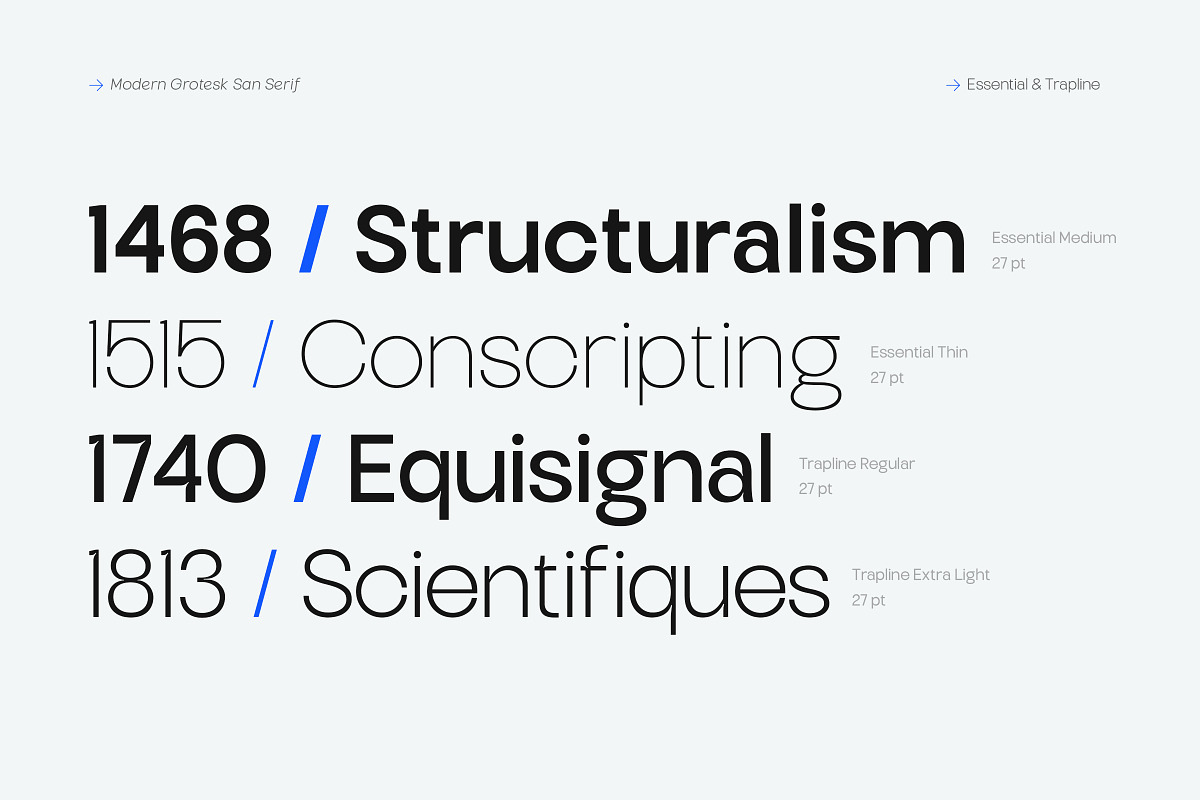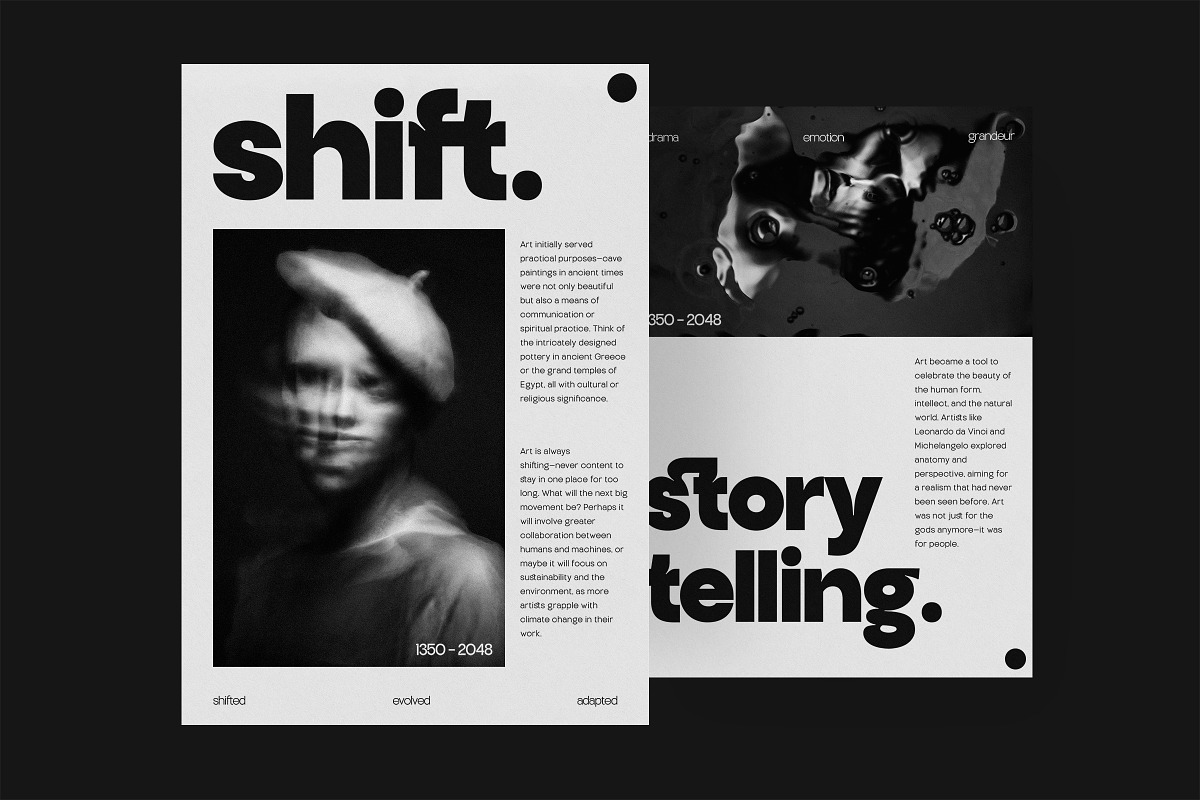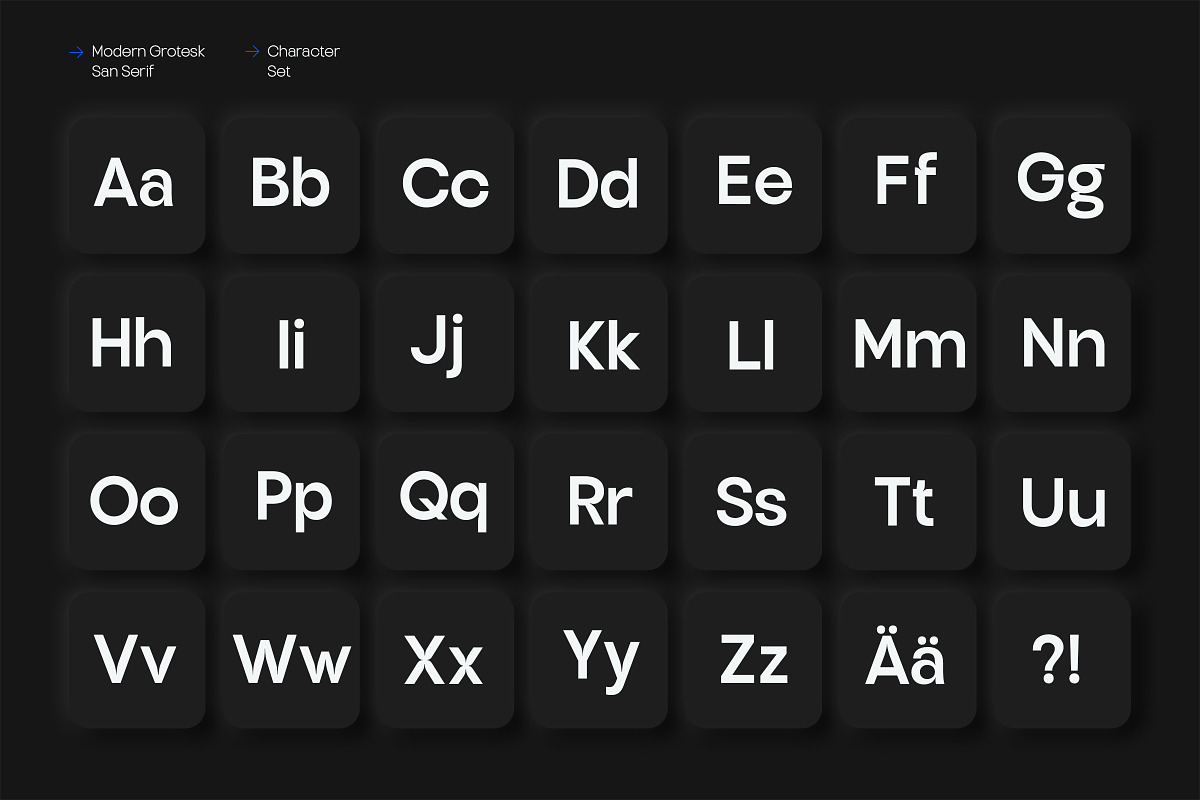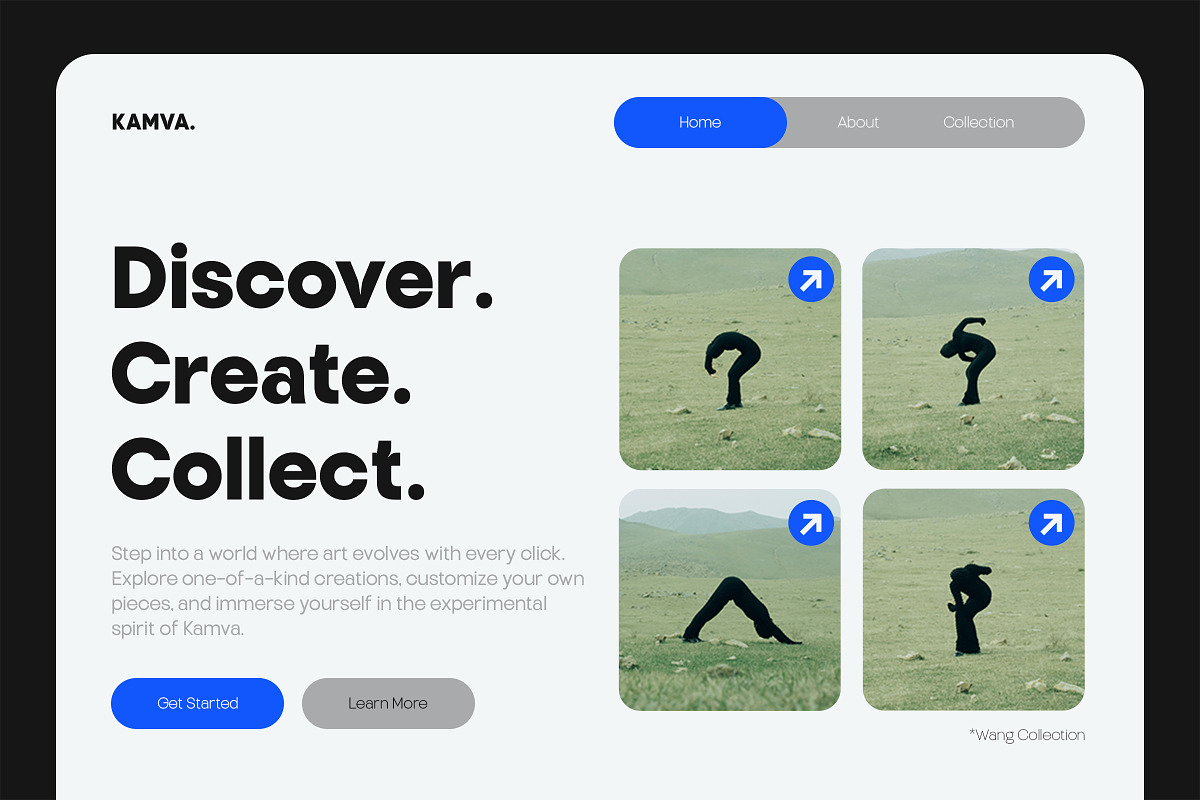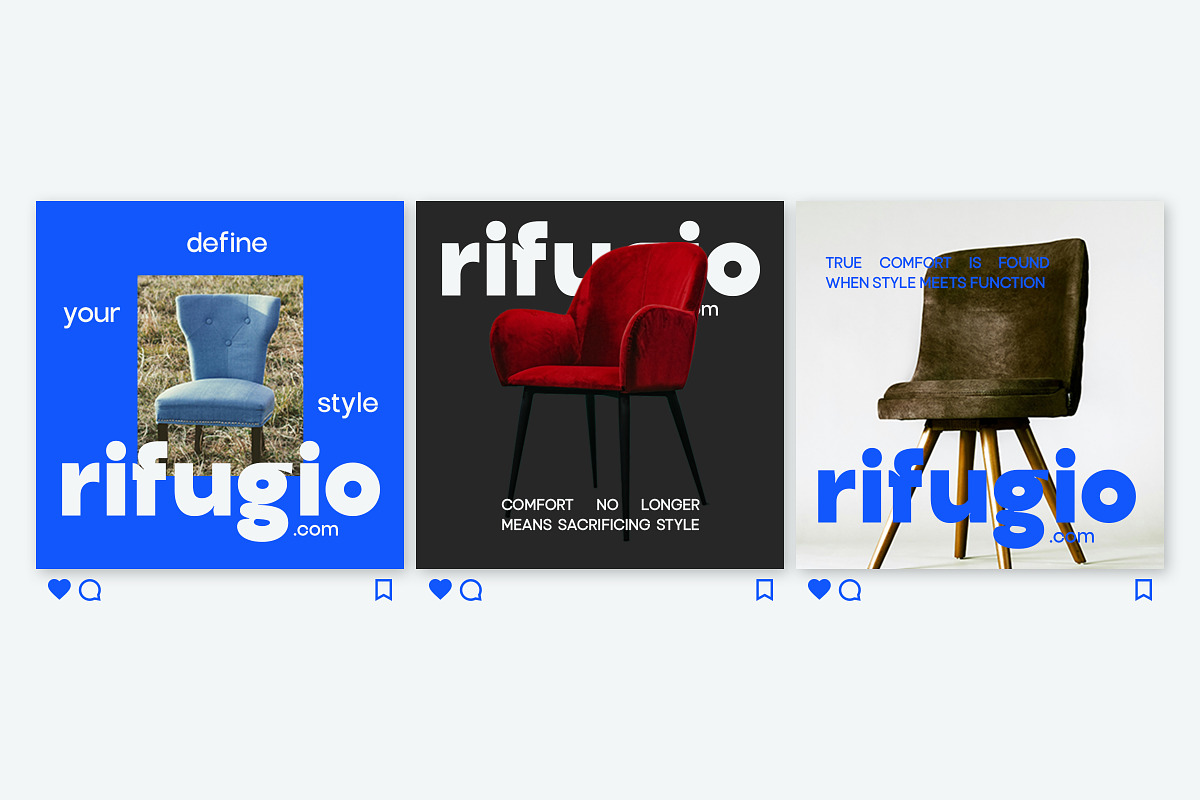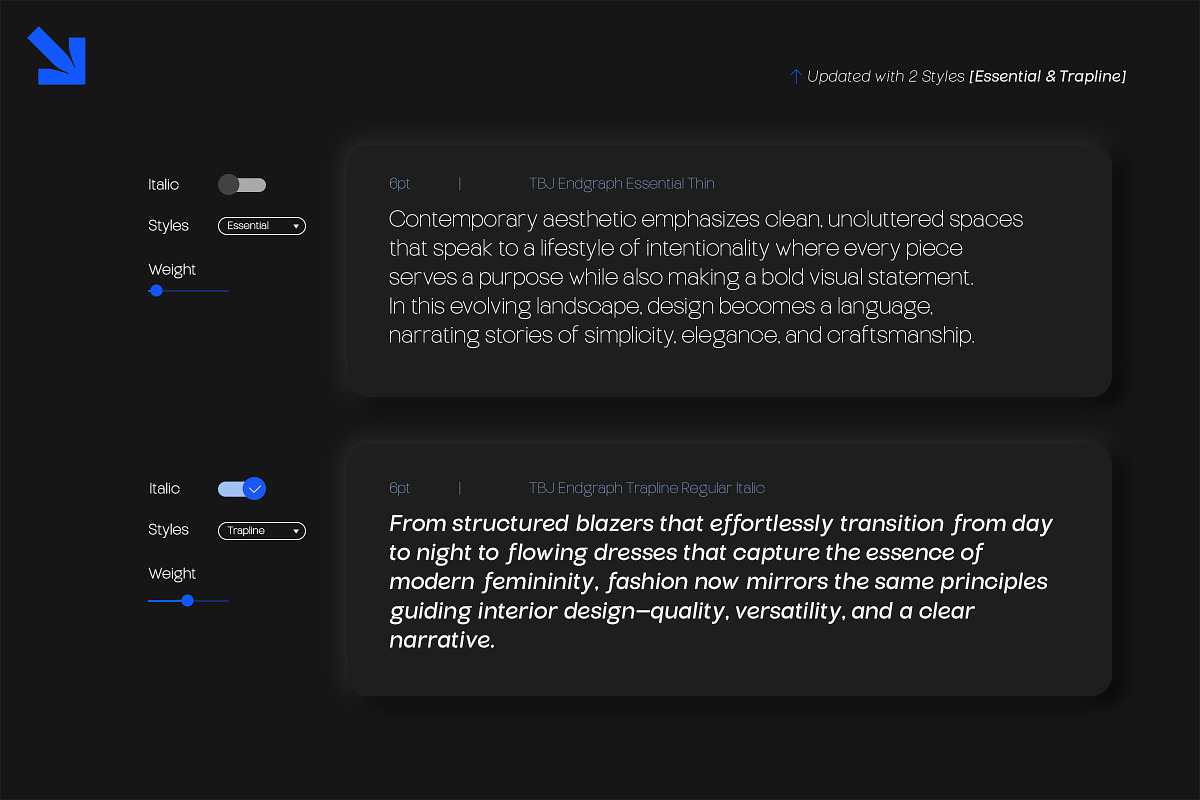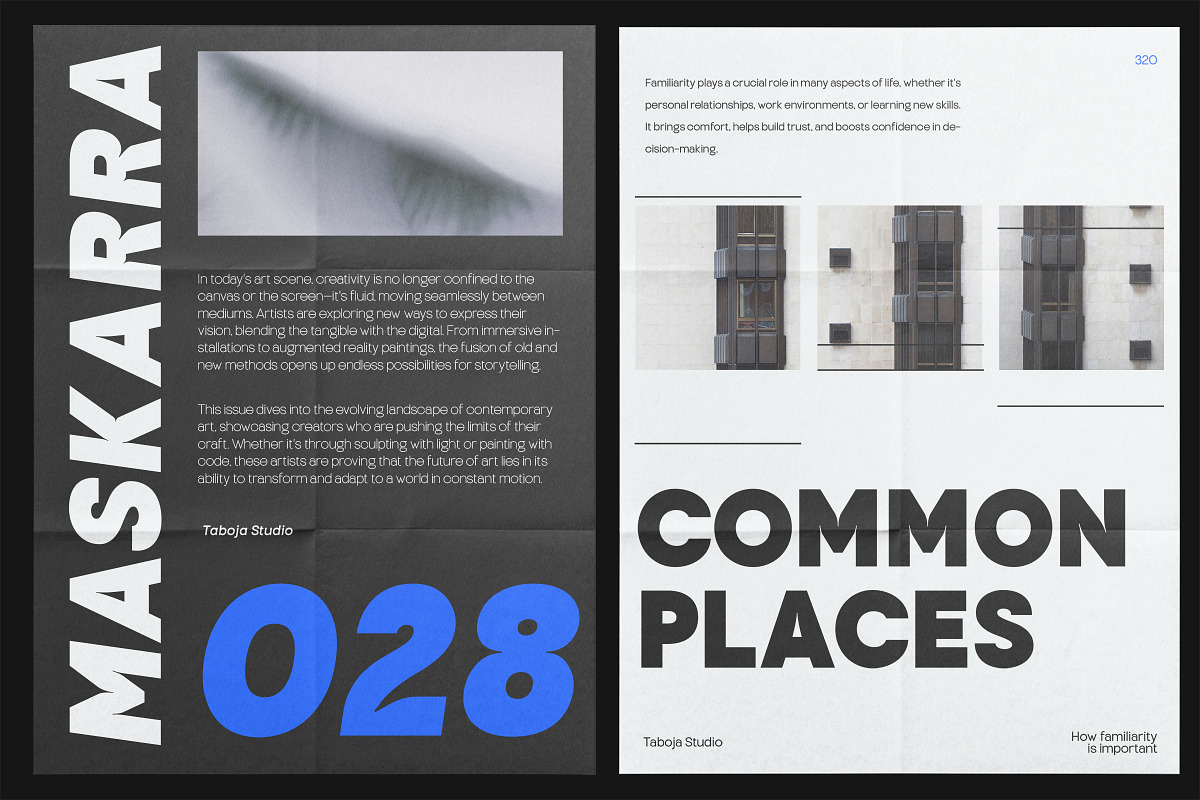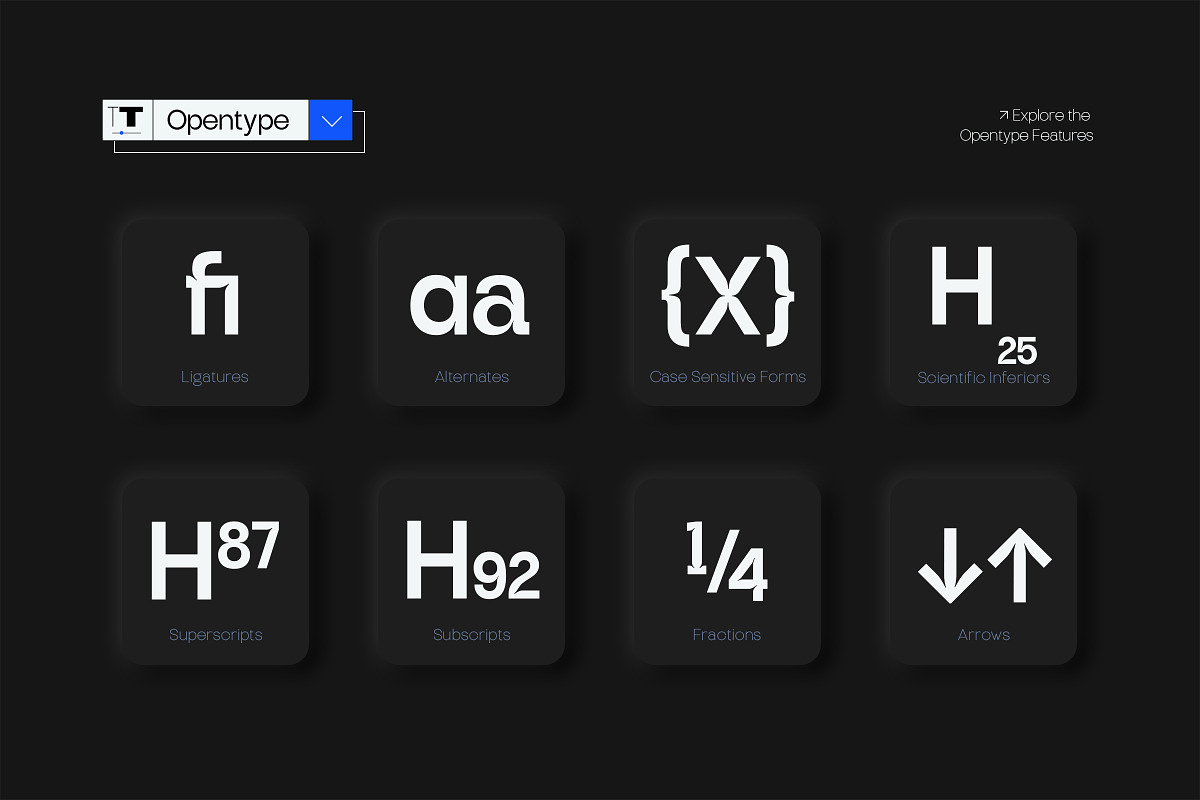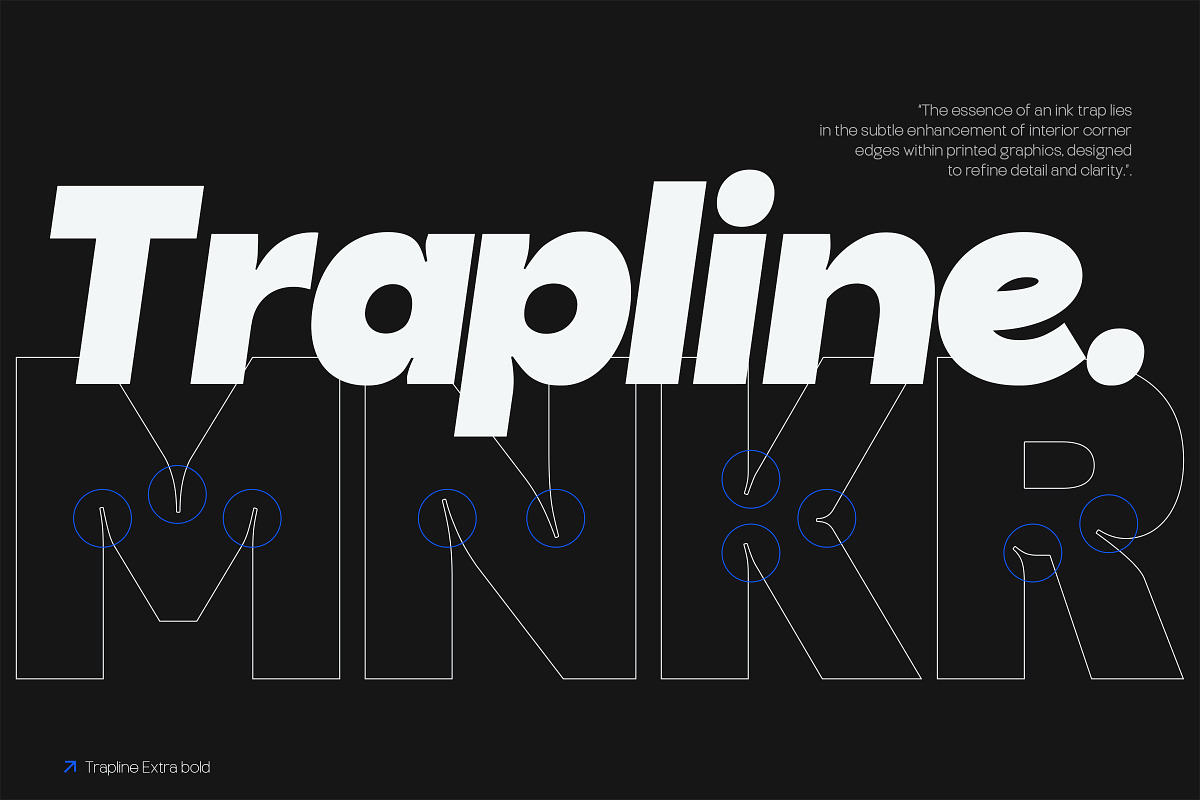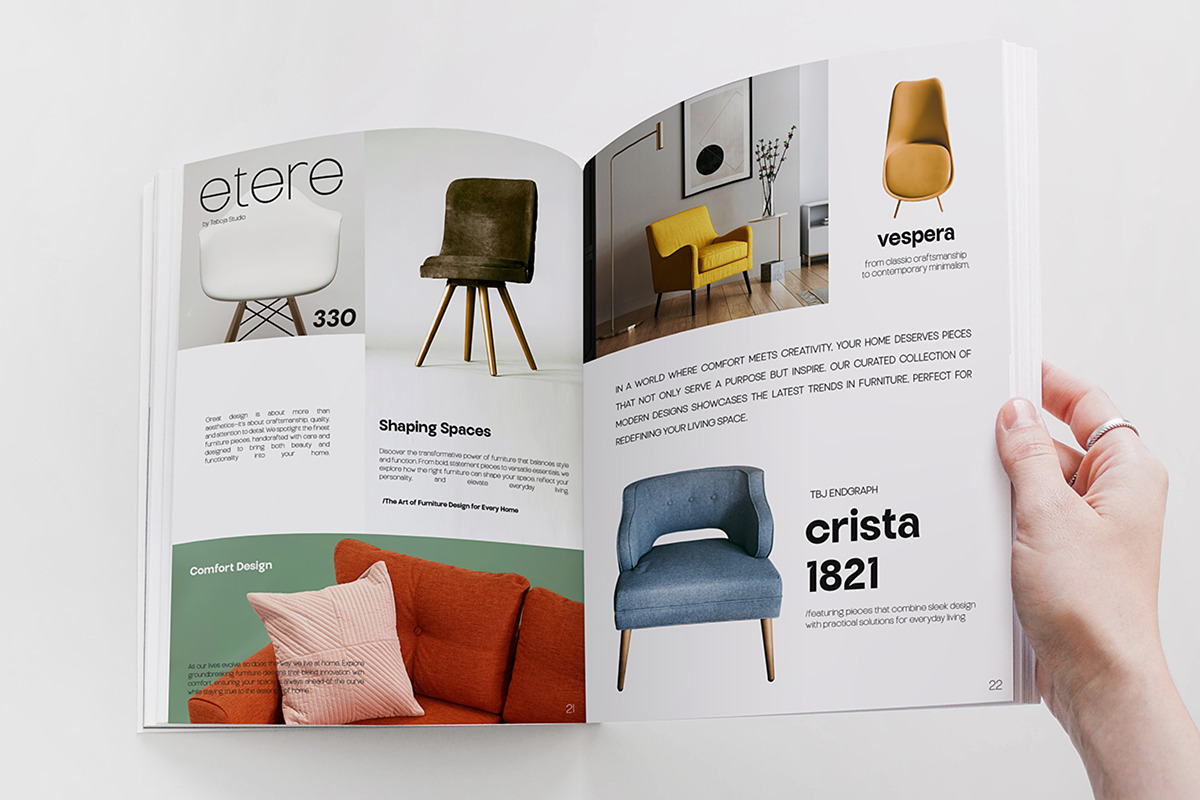
TBJ Endgraph 2 Styles
Each weight of TBJ Endgraph adapts effortlessly to various design needs, ensuring a consistent and professional look across all your creative works. From bold headlines to detailed body text, this font family provides the flexibility and elegance you need. Give your projects a contemporary edge with TBJ Endgraph, a font family that's as flexible as it is attractive.
TBJ Endgraph Includes:
- 8 Weights
- New 2 Styles Essential & Trapline
- Alternates And Ligatures
- Numerals And Punctuation